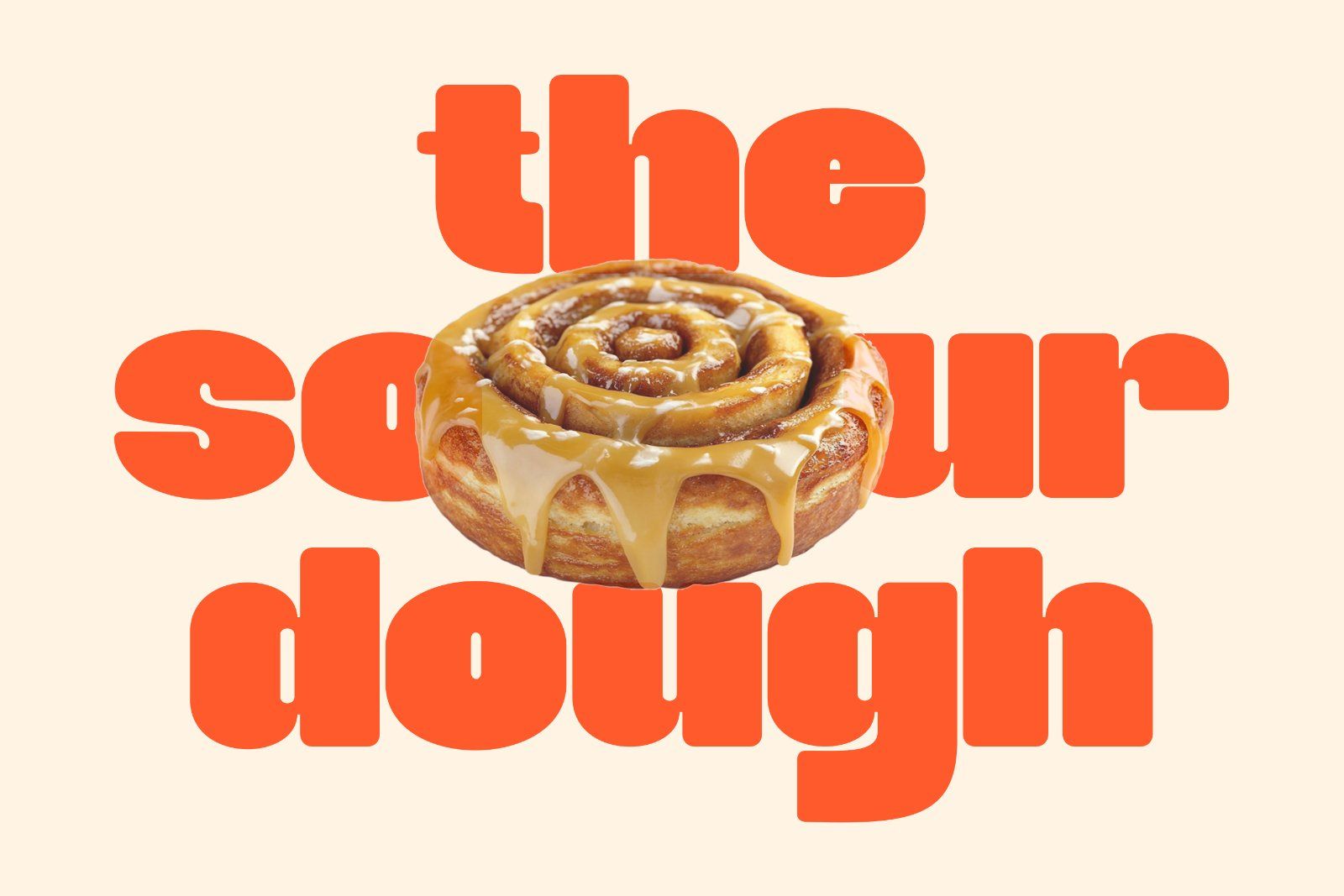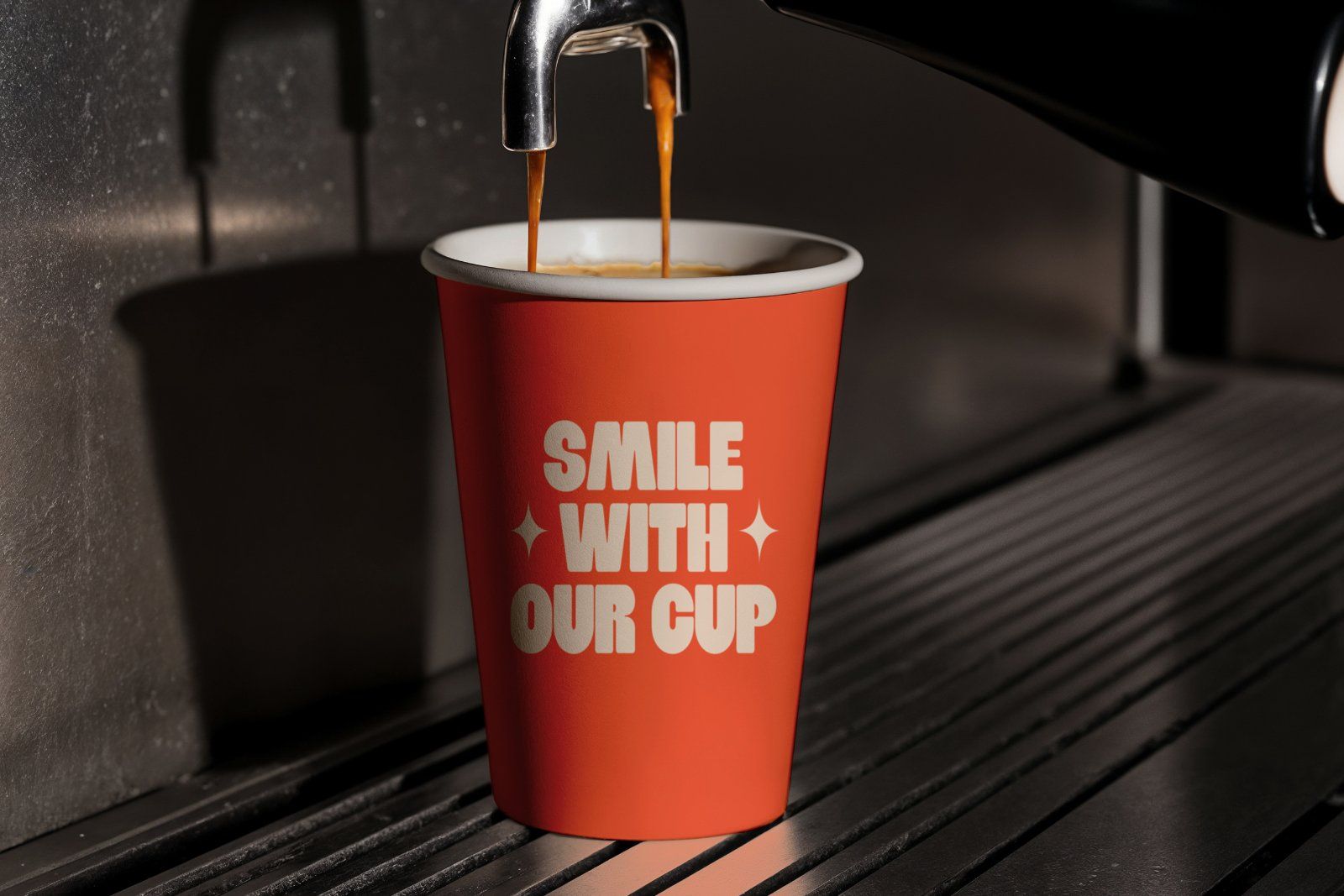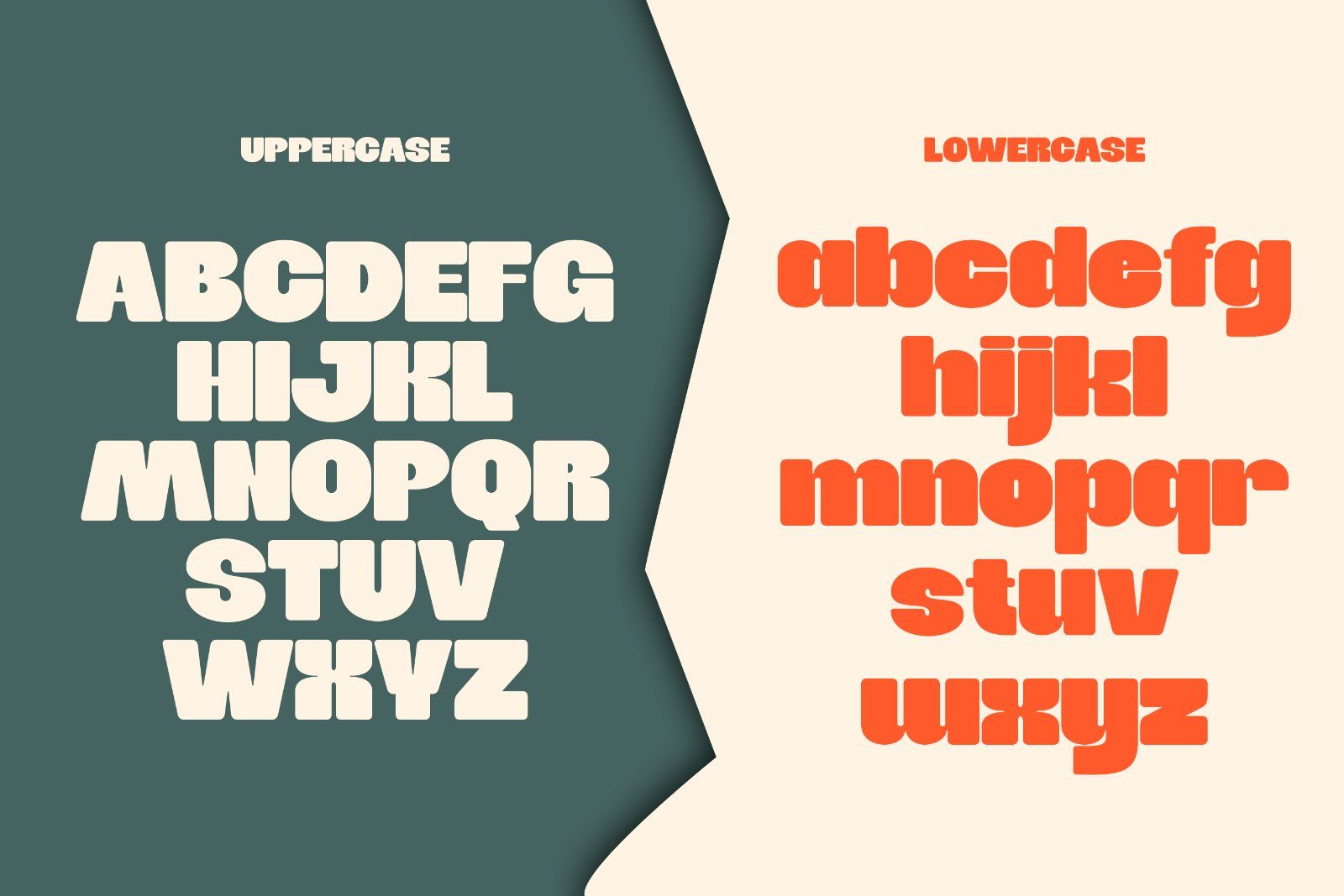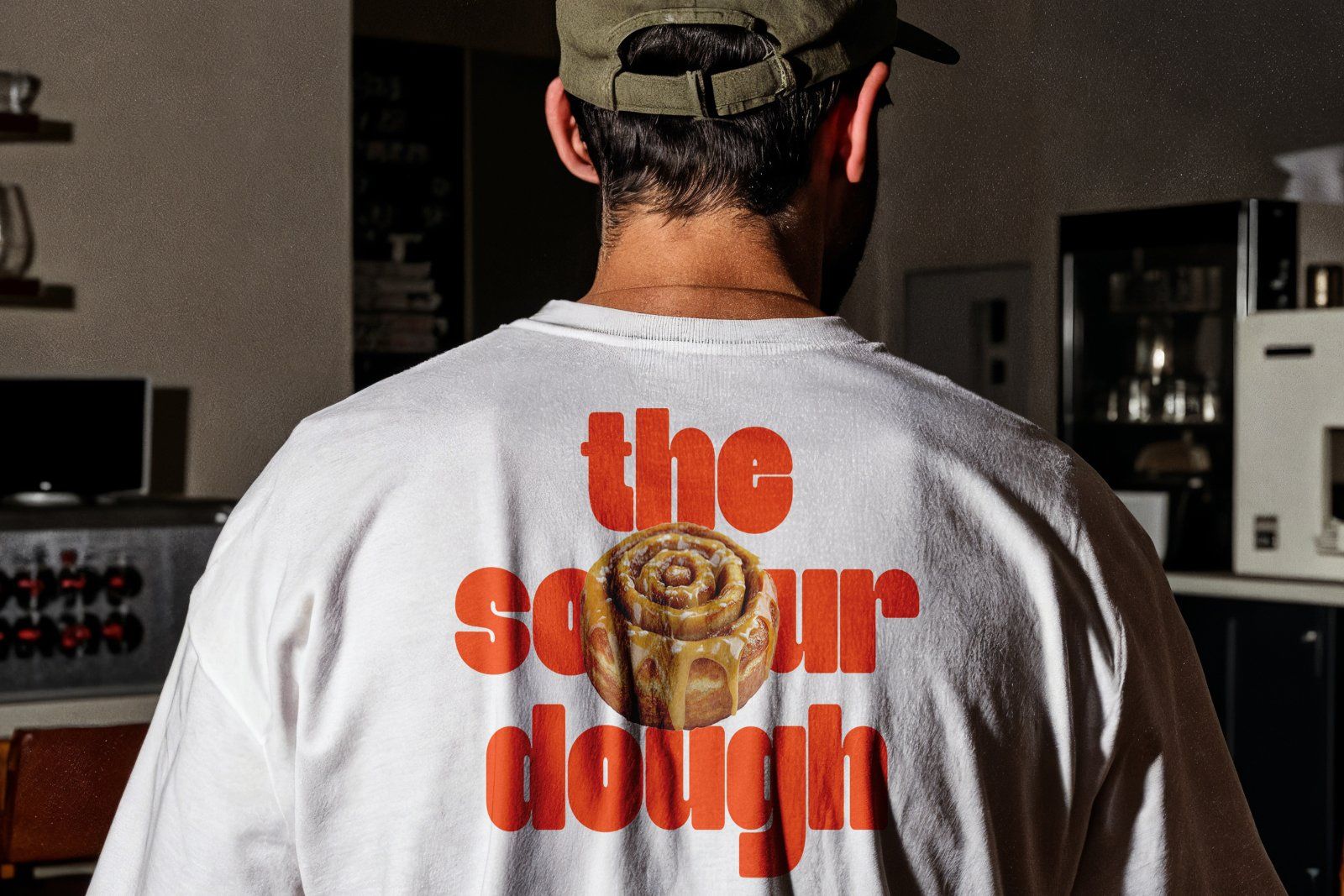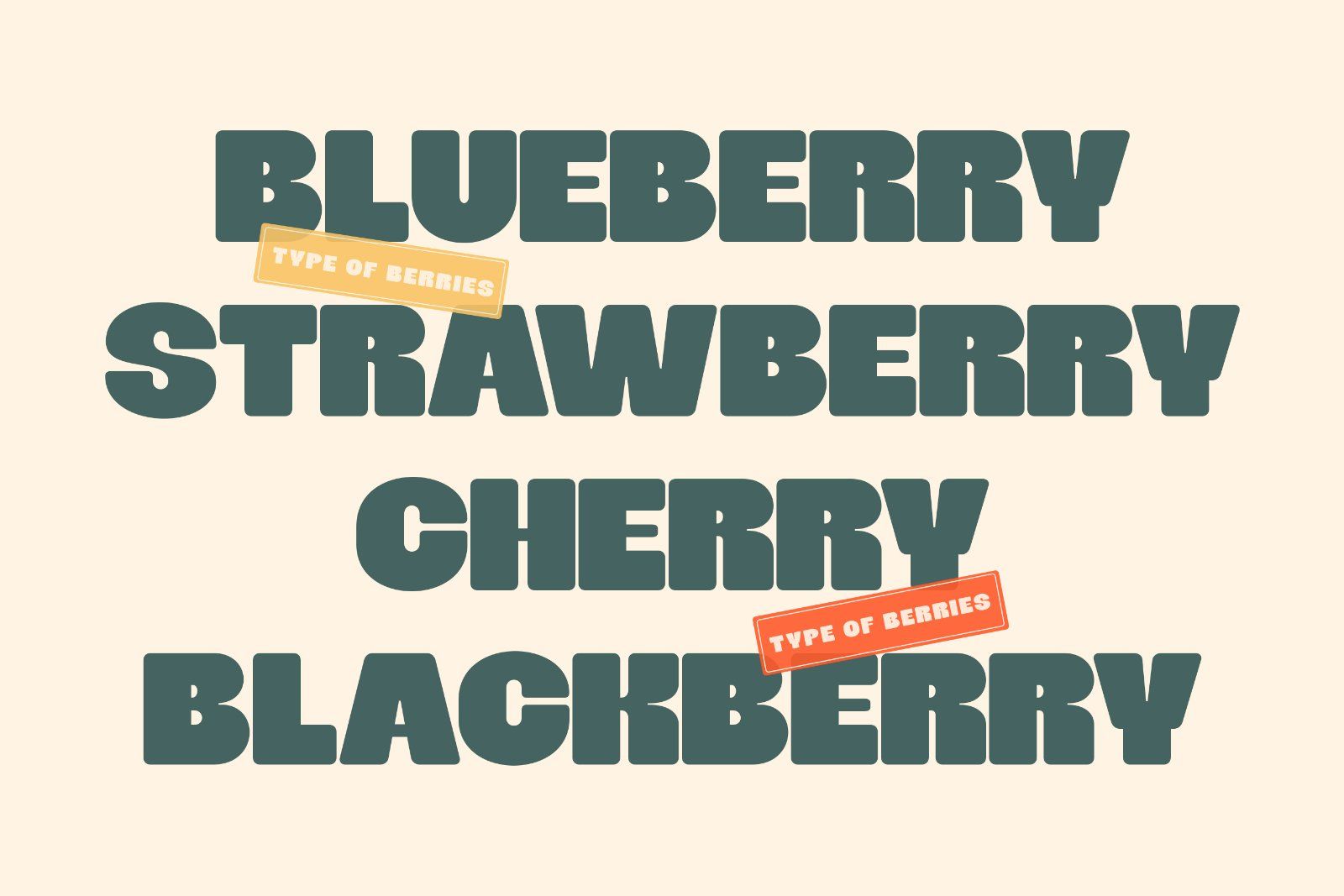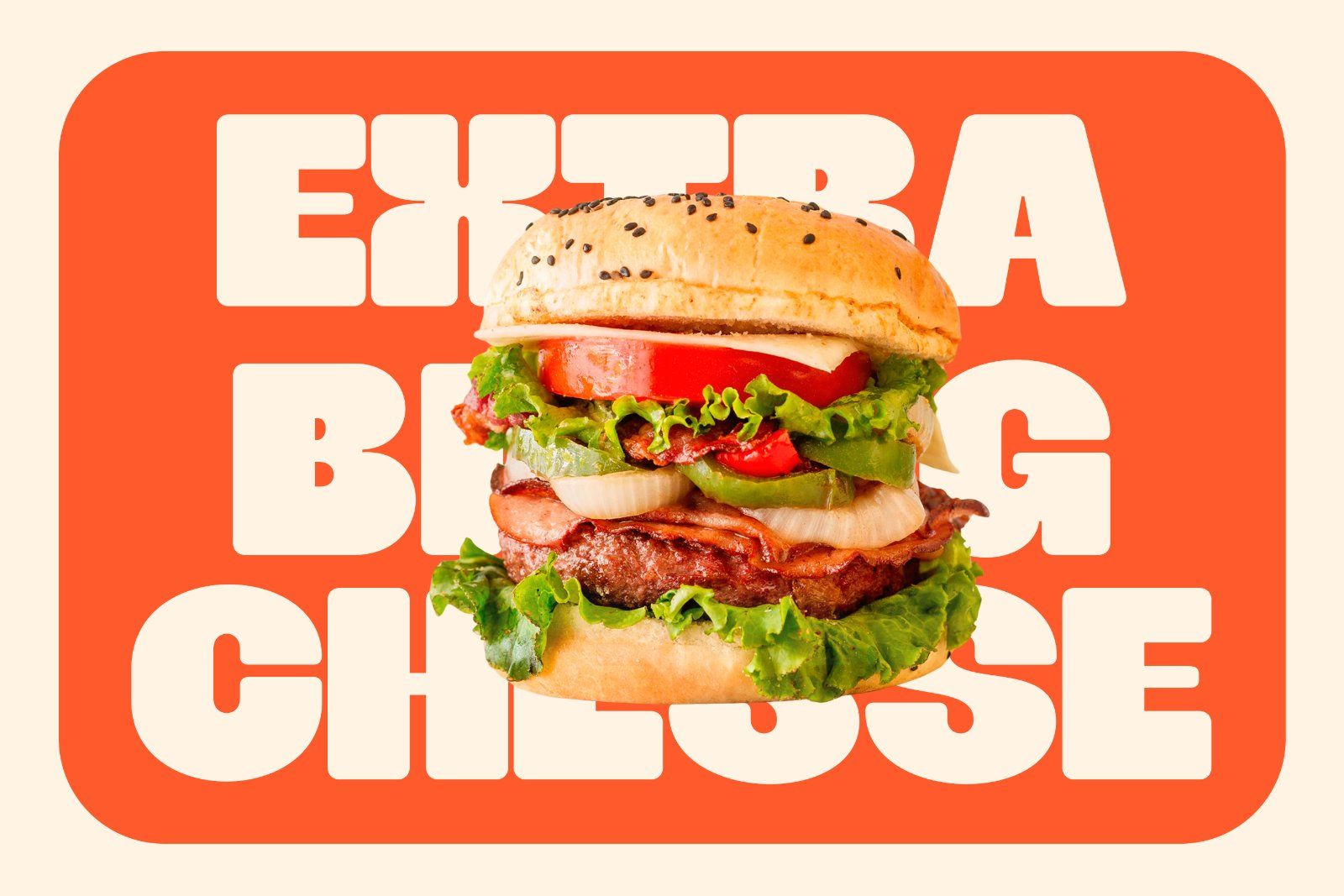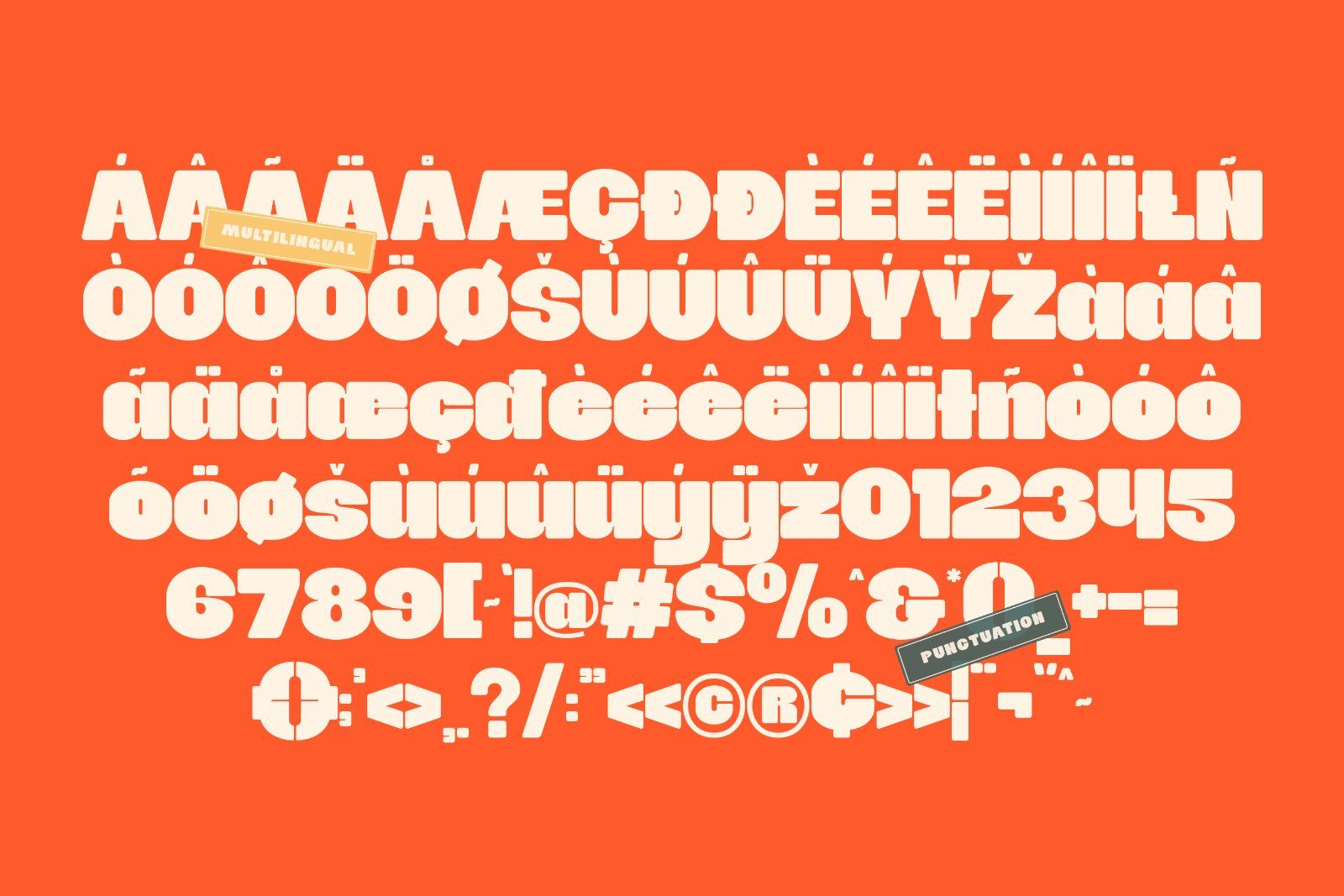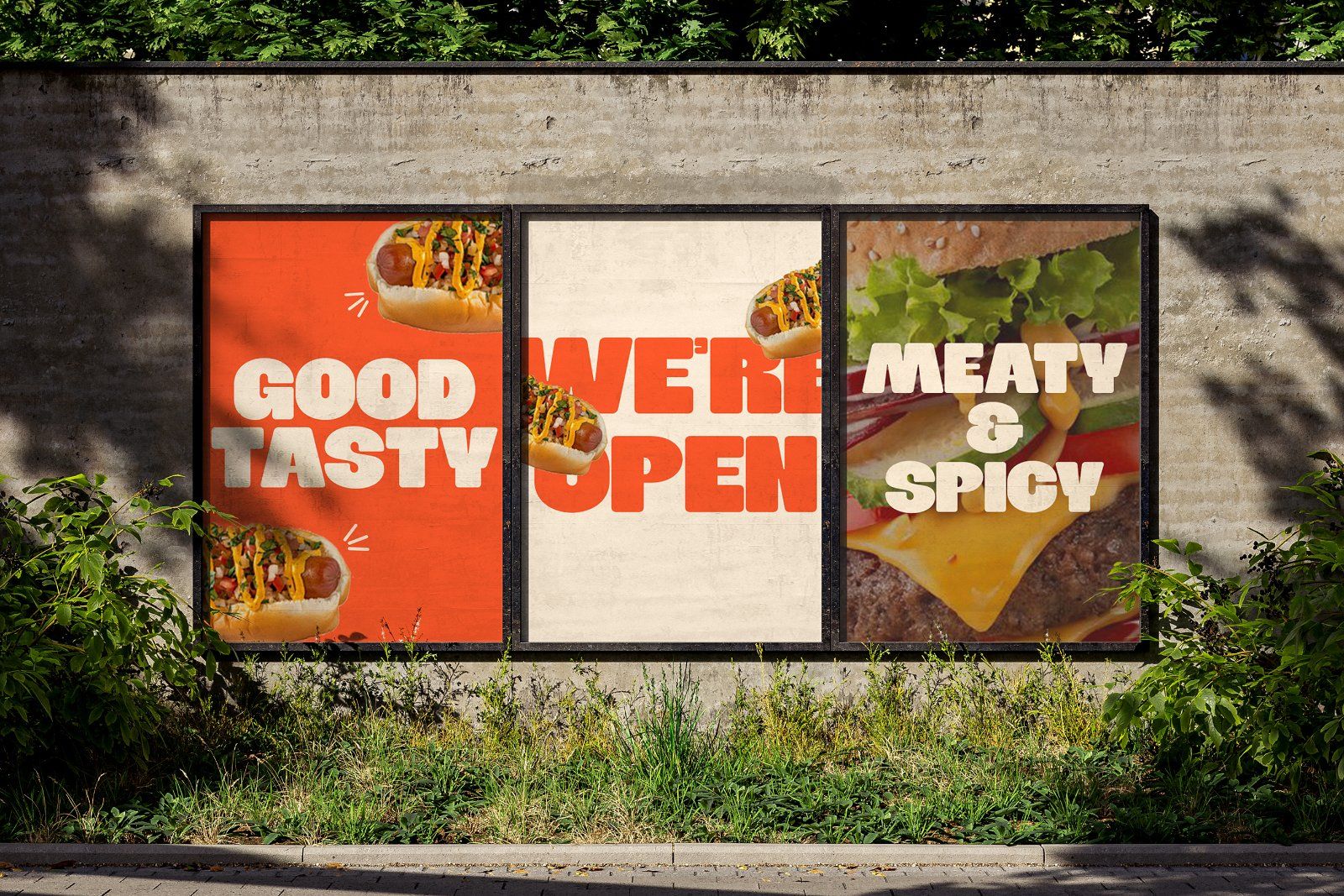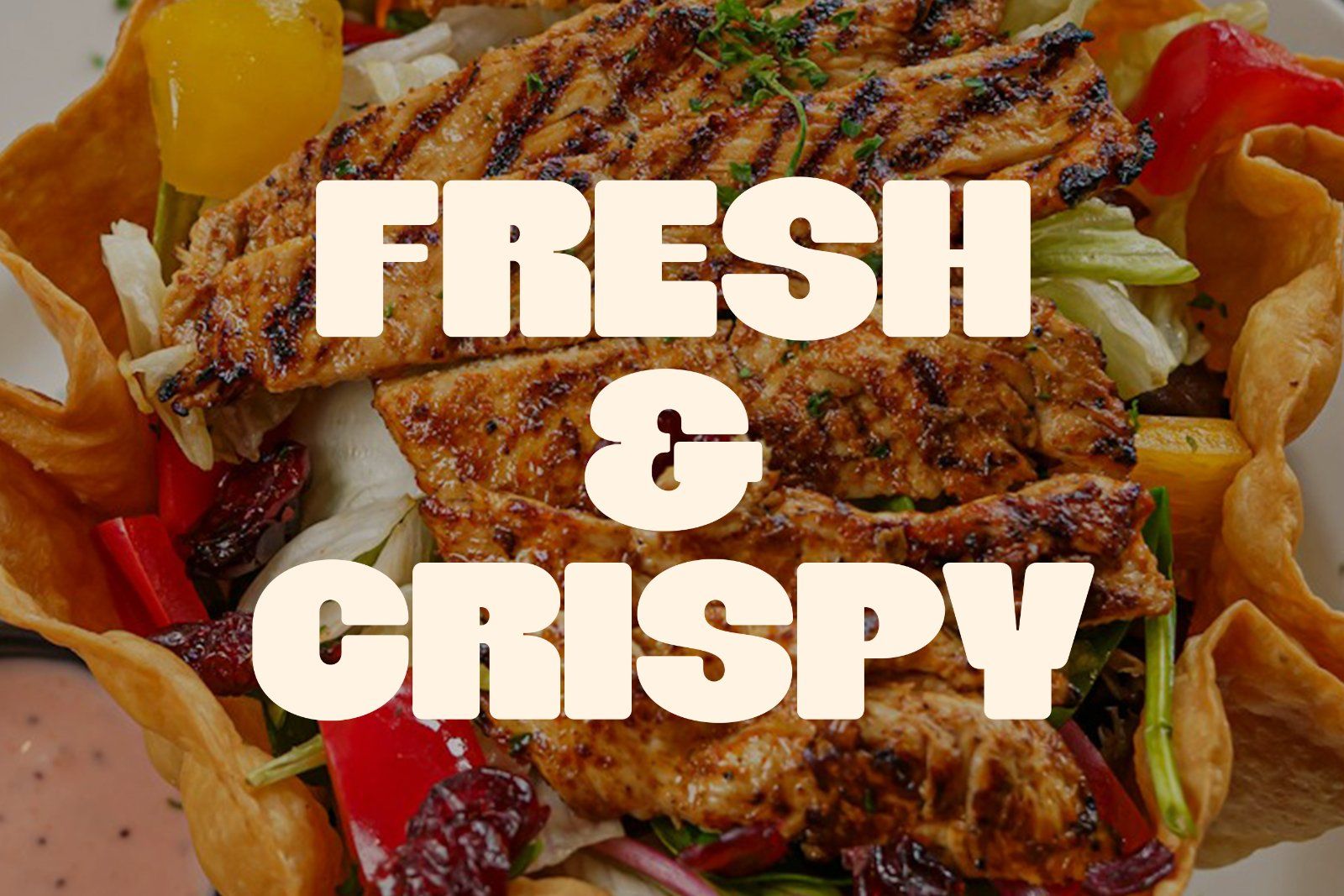
Shagie Boogie is a bold, chunky sans-serif display font with a playful and confident personality. Designed to stand out, this typeface features thick strokes, rounded shapes, and a strong visual presence that instantly grabs attention.
Perfect for headlines, posters, branding, packaging, social media graphics, logos, merchandise, and any design that needs a fun yet powerful look. Shagie Boogie brings a retro-inspired, cheerful vibe while remaining clean and highly readable.
Whether you’re working on modern branding or funky vintage designs, Shagie Boogie adds character, boldness, and charm to your typography.
• Uppercase
• lowercase
• Numbers
• Punctuation